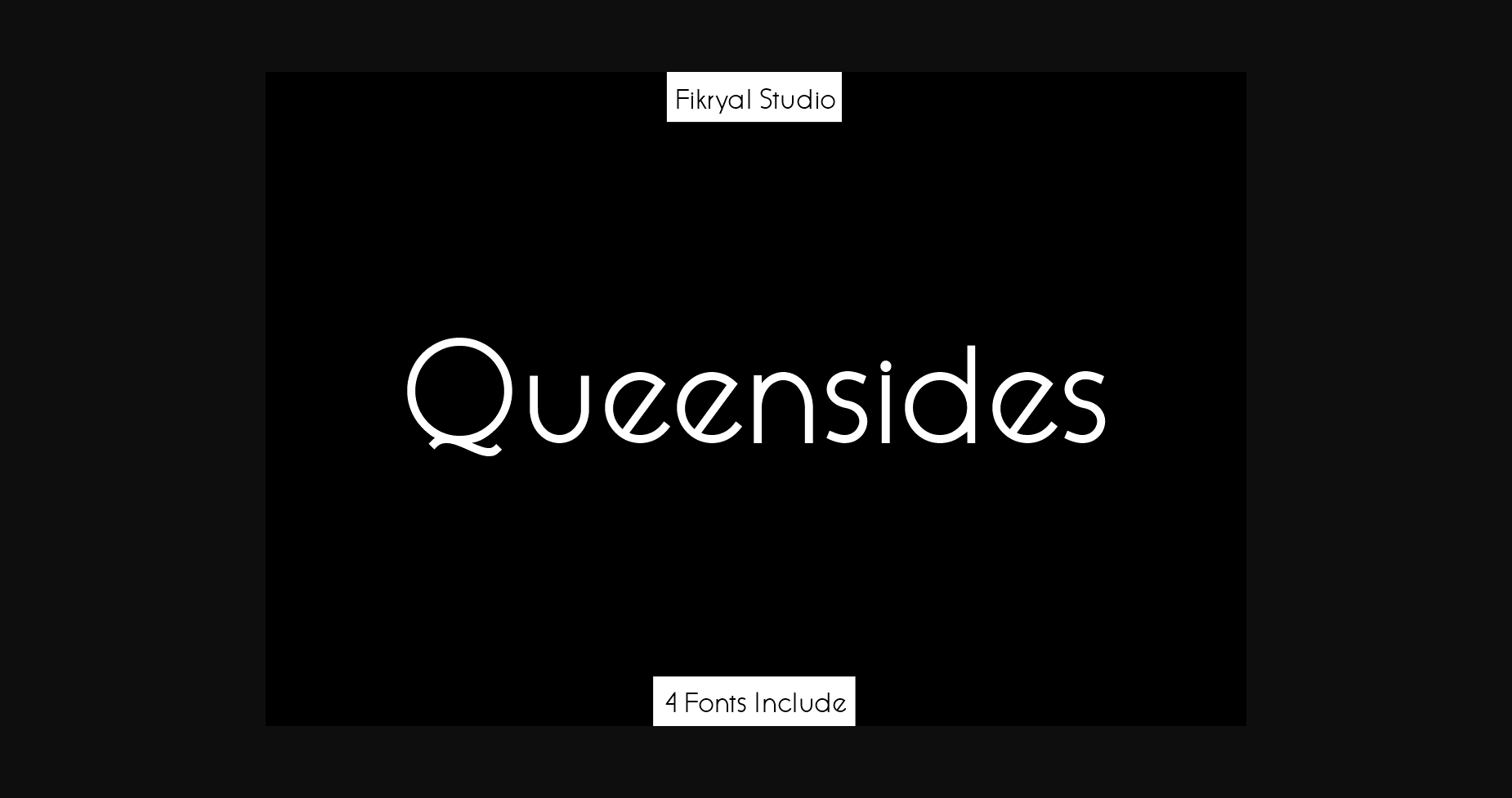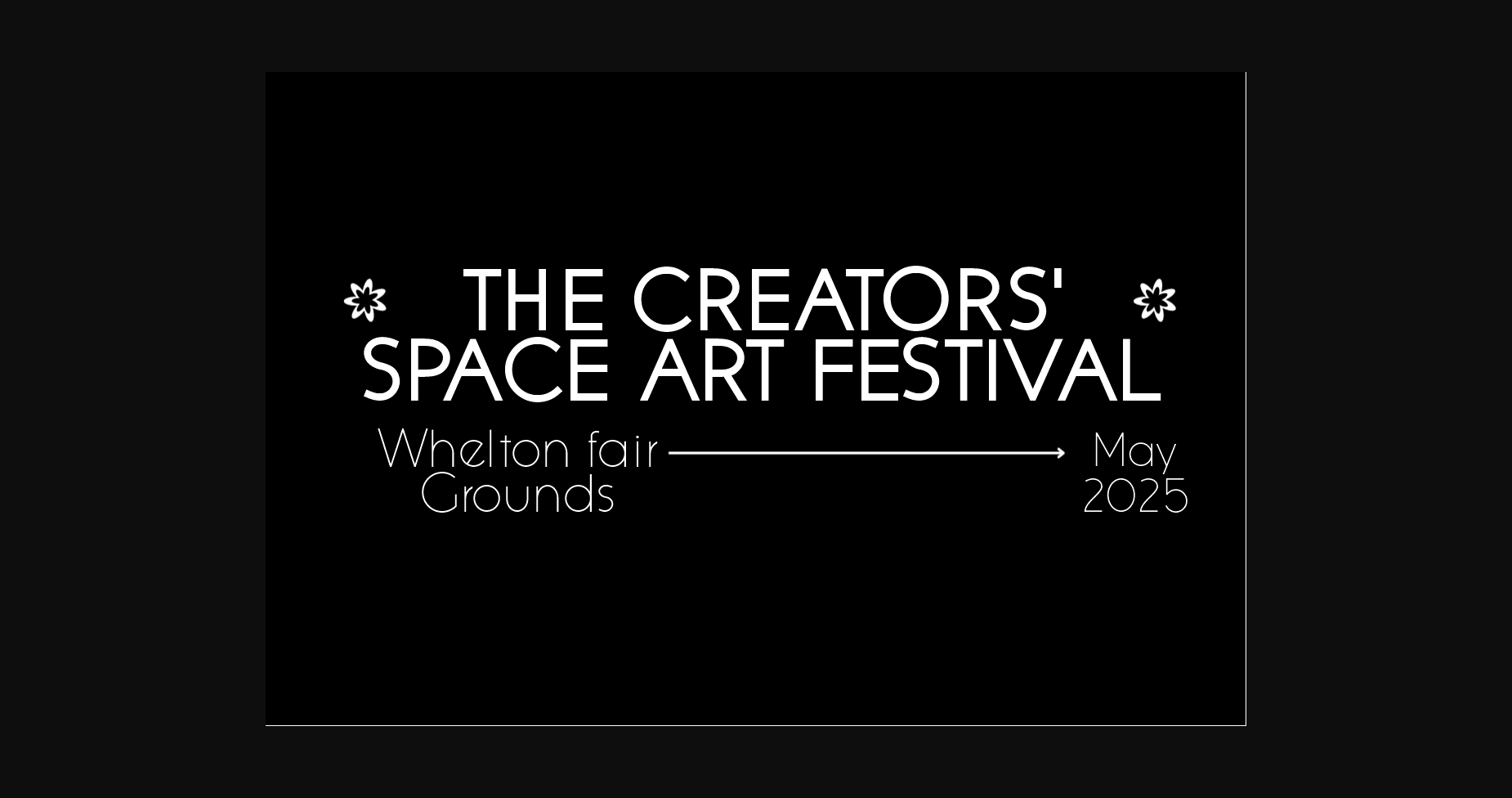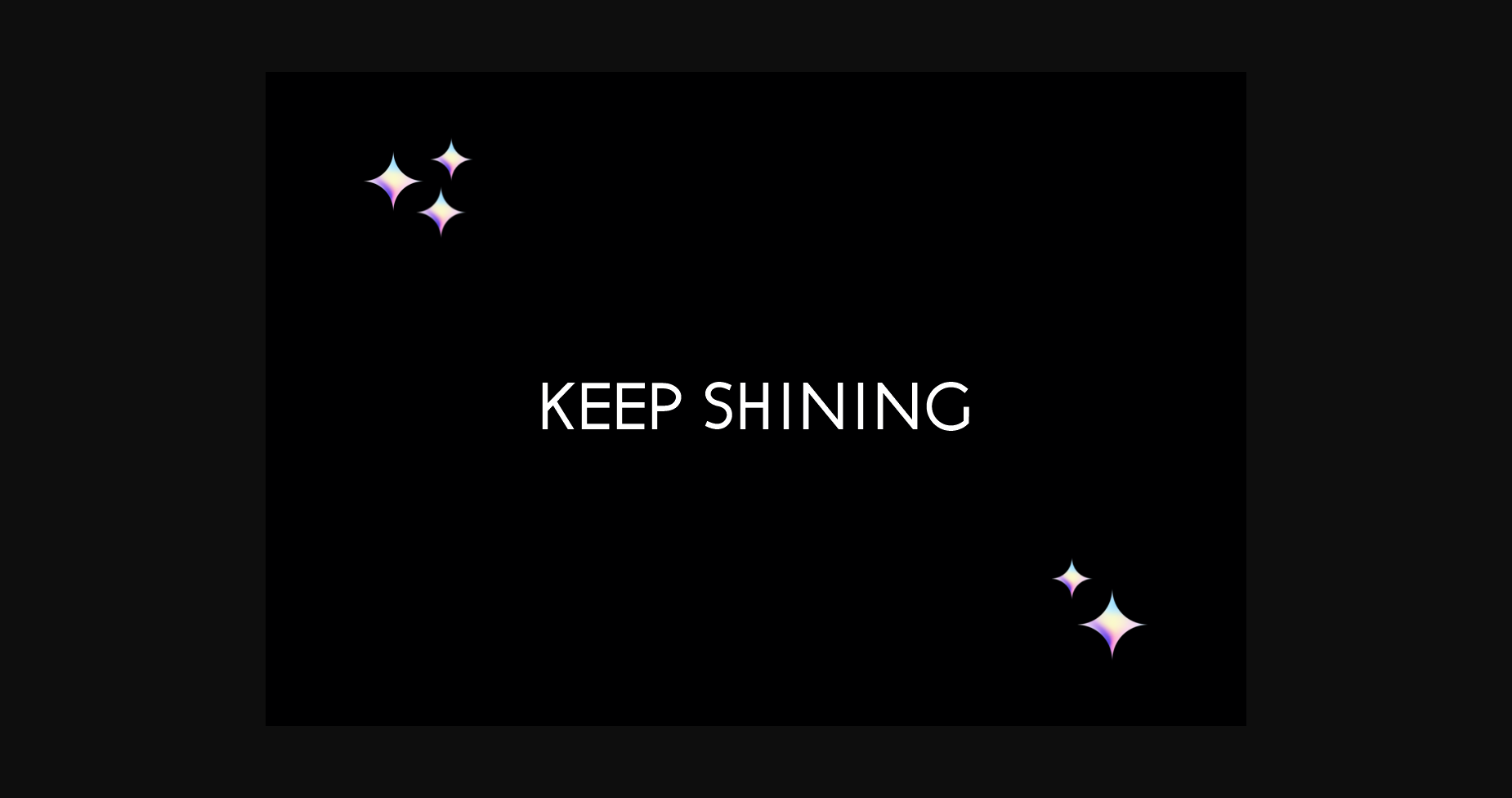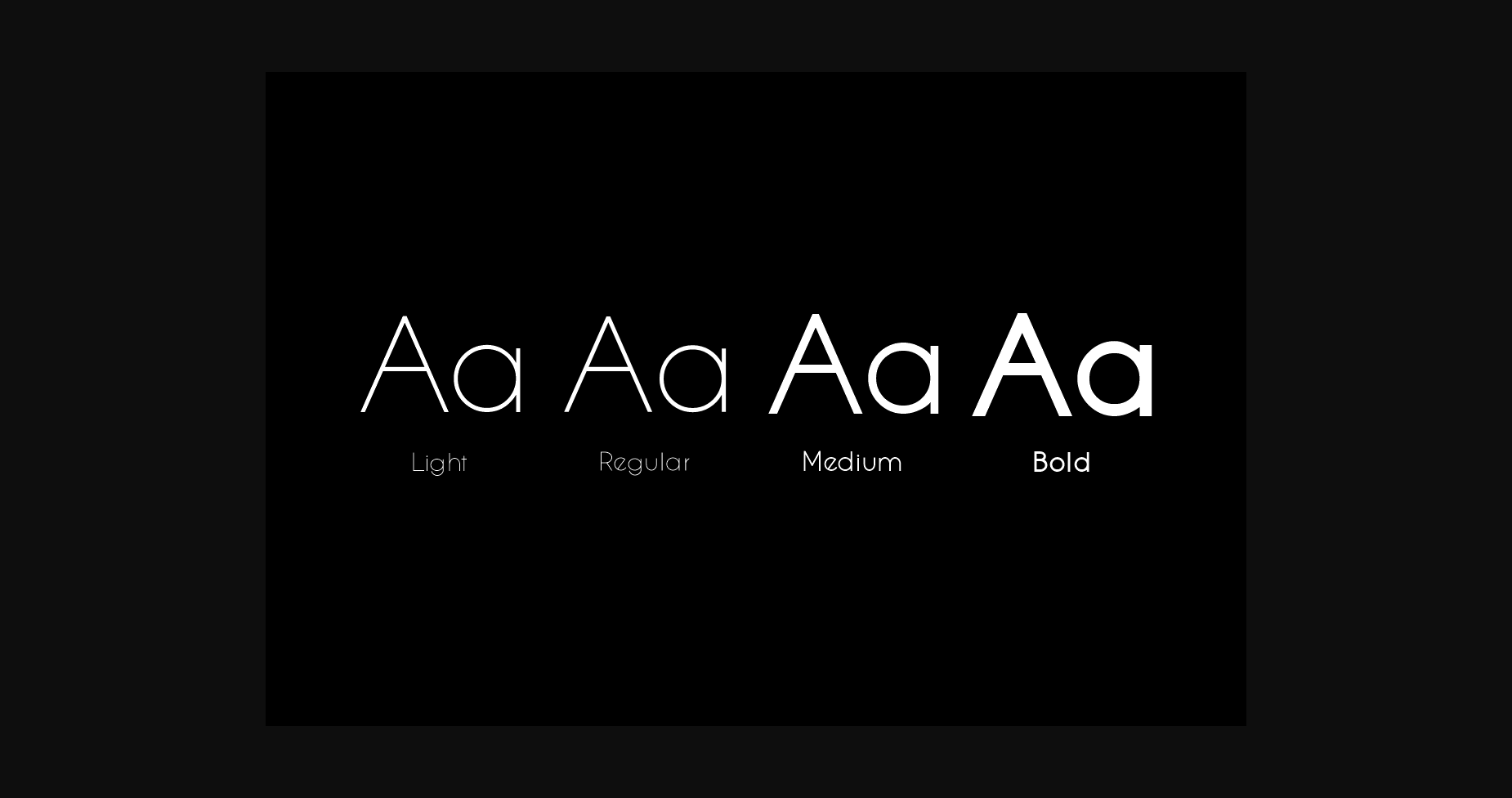
About Queensides Font
Queensides – Elegant Sans Serif Family Font
This font is suitable to be applied to various aspects of design and your branding.
It’s perfect for logos, titles, social media posts, advertisements, product packaging, product designs, labels, photography, watermarks, special events, magazines, web designs, etc.
This font is suitable to be applied to various aspects of design and your branding.
It’s perfect for logos, titles, social media posts, advertisements, product packaging, product designs, labels, photography, watermarks, special events, magazines, web designs, etc.